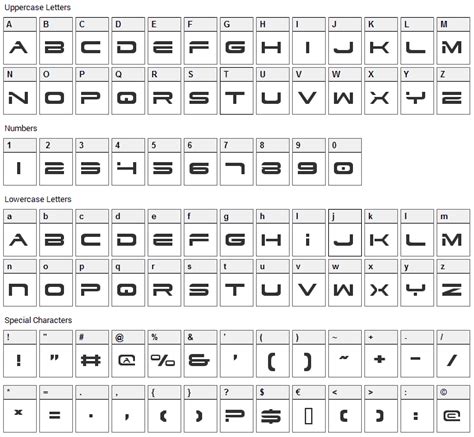
Create Awesome Designs: Free Dodger Font Generator
Hey guys! Ever wanted to jazz up your designs with that classic, all-American feel? Well, you’re in the right place! We’re diving deep into the world of the Dodger font generator , your secret weapon for creating eye-catching visuals. Forget those generic fonts; with a Dodger font, you’re bringing in a slice of history, sports, and undeniable style. And the best part? We’re talking about free downloads, so you can get started without breaking the bank. Let’s get this show on the road and explore how you can use these fantastic fonts to make your designs pop! Imagine your social media posts, website banners, or even personalized merchandise sporting the iconic look of the Dodgers. It’s not just a font; it’s a statement. A statement that screams, “I know what’s cool!” So, buckle up, because we’re about to explore where to find these gems, how to use them, and some cool design ideas to get those creative juices flowing. The use of a Dodger font generator offers many possibilities, from crafting social media graphics to designing team merchandise. A font helps your brand to stand out.
• Finding the Right Font: Once you’ve found a site, browse through the options. You’ll likely see fonts that mimic the Dodgers’ iconic logo or fonts with a similar sporty vibe. Pay attention to the font’s style – is it bold, italic, or something else? Consider how it will look in your designs. Think about legibility too. You want a font that looks great but is also easy to read. Always prioritize readability , especially if you’re using the font in a headline or a logo. Don’t forget that using the right font can elevate your designs. When you download a font, it usually comes in a zip file. You’ll need to unzip it and then install the font on your computer. The installation process varies slightly depending on your operating system (Windows or Mac), but it’s usually straightforward. Once installed, the font will be available in your design software. You are set to create something unique. It is super easy and is the best way to get that Dodger font look.
Design Ideas: Unleashing Your Creativity with Dodger Fonts
Now for the fun part: how do you actually use these Dodger fonts ? The possibilities are endless, my friends! Let’s get your creative gears turning. First, logos. If you’re designing a logo for a sports team, a fan club, or any brand with a sporty feel, a Dodger-inspired font is a perfect choice. It immediately conveys that energetic, all-American spirit. Think about the New York Yankees or the Boston Red Sox. Their logos do not need any further explanation. Next, social media graphics. Want to make your Instagram posts or Facebook banners stand out? Use a Dodger font for headlines, quotes, or even to create eye-catching text overlays on your images. Consider using it in a poster format to announce a game or a social event. You can also craft a beautiful invitation with the Dodger font style to wow the attendees. These fonts can also be used in web design. Think about the websites of sports blogs, fan sites, or any site with a sports theme. A Dodger font can be used for the headings, subheadings, and even body text. It adds visual interest and reinforces the theme.
• Creating Merchandise: How about creating merchandise? Design t-shirts, mugs, or hats with the Dodger font. Add a team name, a player’s number, or a cool slogan. Sell them online or at local events. You could create posters to support a team or a social cause. You can design flyers for local sports events, team tryouts, or community gatherings. Make sure you use the font strategically to grab attention. Don’t forget about personal projects. You can use the font for personal projects like creating custom cards, invitations, or scrapbooks. It’s a great way to add a personalized touch. It is also a good opportunity to learn new tools. Consider making a website from scratch using HTML and CSS and implementing the font on the whole website. There are many options and many tools that you can learn.
• Online Generators: Sometimes, you do not need to download the font itself. Some Dodger font generators allow you to create text using the font online. You can type in your text and see how it looks in the font. Then, you can download the image of the text or copy and paste it into your design. This is a quick and easy way to create text with a Dodger font without having to install the font. This is useful for simple designs or if you are not familiar with installing fonts on your computer.
• Staying Updated: Keep up-to-date with new font releases and design trends. There are always new and exciting fonts being released. Follow design blogs, and keep learning new techniques. You can make sure you are in the know of all things design.
Conclusion: Your Journey into Dodger Font Design Begins Now
So there you have it, folks! Your guide to the Dodger font generator and how to create amazing designs. From finding free downloads to sparking your creativity with cool design ideas, you’re now equipped to bring that classic, sporty vibe to your projects. Remember, the key is to have fun, experiment, and let your creativity run wild. Go out there and create designs that wow everyone! Whether you are a professional designer or just starting out, mastering these fonts is a game-changer.
We talked about how to find free fonts, how to install them, and how to use them to make your designs pop. We also discussed some of the things that can go wrong when you are working with fonts. So, what are you waiting for, guys? Download your free Dodger fonts, fire up your design software, and start creating! You can create logos, social media graphics, web designs, and merchandise. You are ready to create!